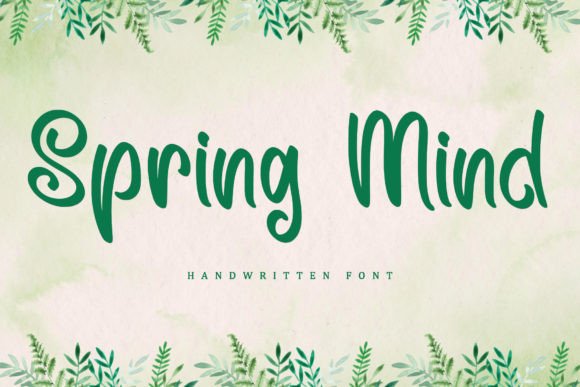
Behold, Spring Mind Font - the enchanting handwritten font that whispers allure and romance into your creative endeavors. Crafted with impeccable artistry by the renowned Esa Maradany, this script font dances across your designs with a lively, yet graceful flair, captivating your audience with its inherent charm.
Imagine the allure of a handwritten love letter, penned with the utmost care and affection. Spring Mind Font embodies this essence, infusing your designs with a touch of intimacy and heartfelt emotion. Its delicate strokes and flowing lines evoke a sense of nostalgia, reminiscent of childhood memories and cherished moments.
Unlike ordinary fonts, Spring Mind Font possesses a captivating personality that transcends mere words. It's a visual symphony, harmonizing graceful curves with playful flourishes, creating a mesmerizing spectacle that dances before the eyes. Each character seems to possess a life of its own, adding a dynamic and engaging element to your designs.
Whether you're crafting elegant wedding invitations, heartfelt greeting cards, or eye-catching headlines, Spring Mind Font seamlessly adapts to your creative vision. Its versatility extends from the delicate intricacies of personal notes to the bold statements of marketing campaigns, effortlessly elevating your projects to new heights of sophistication.